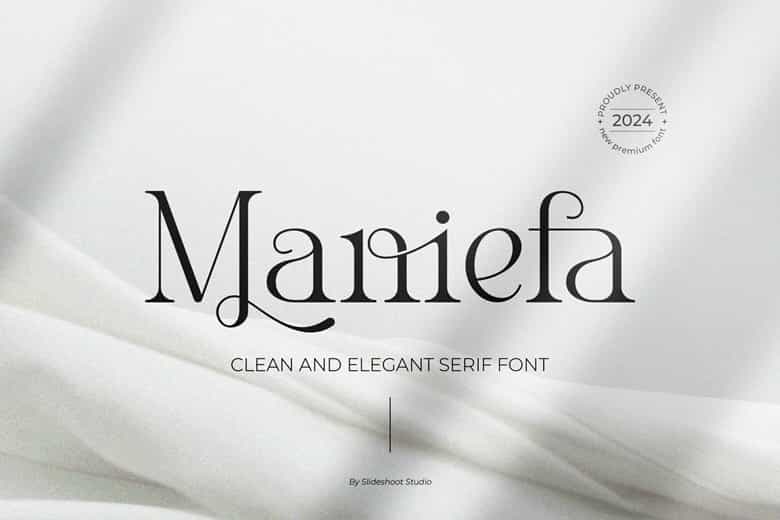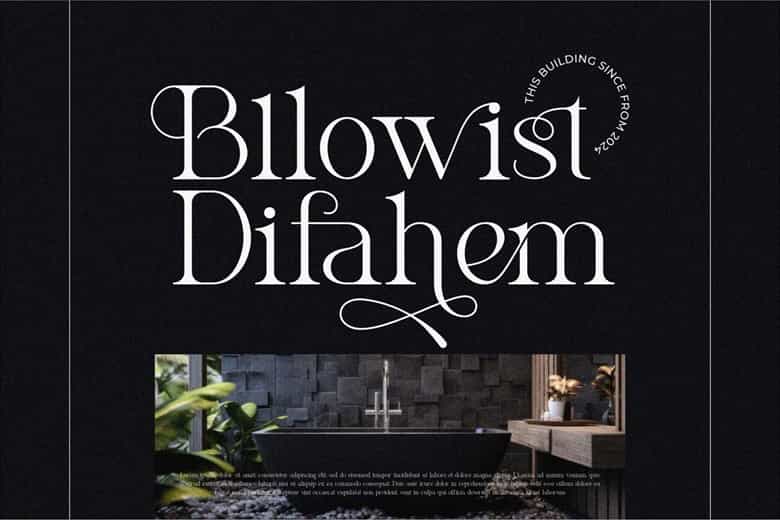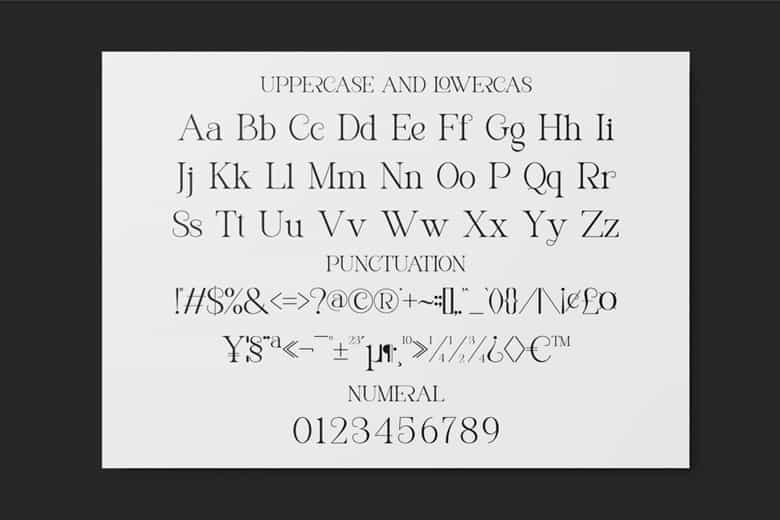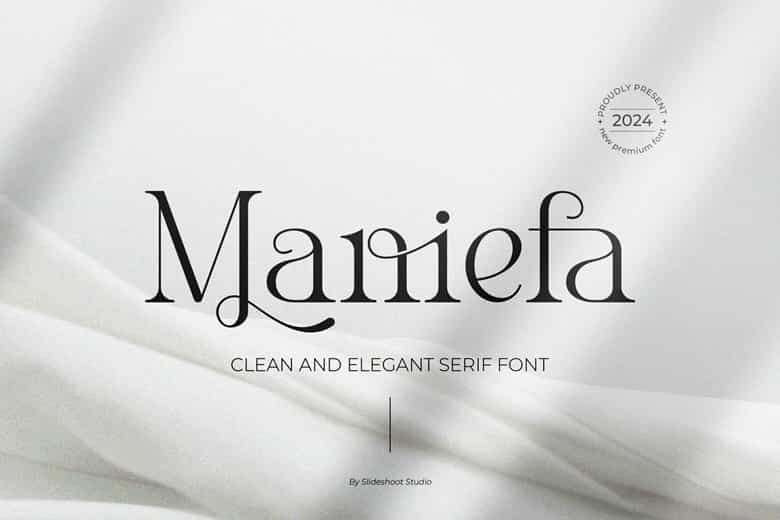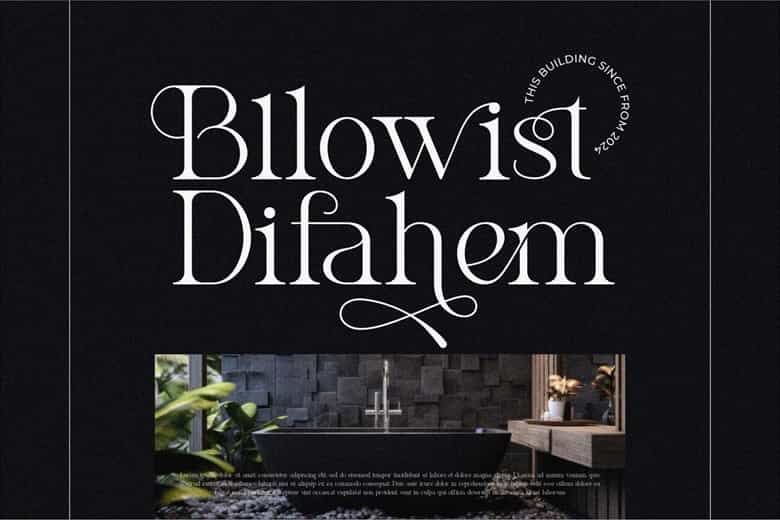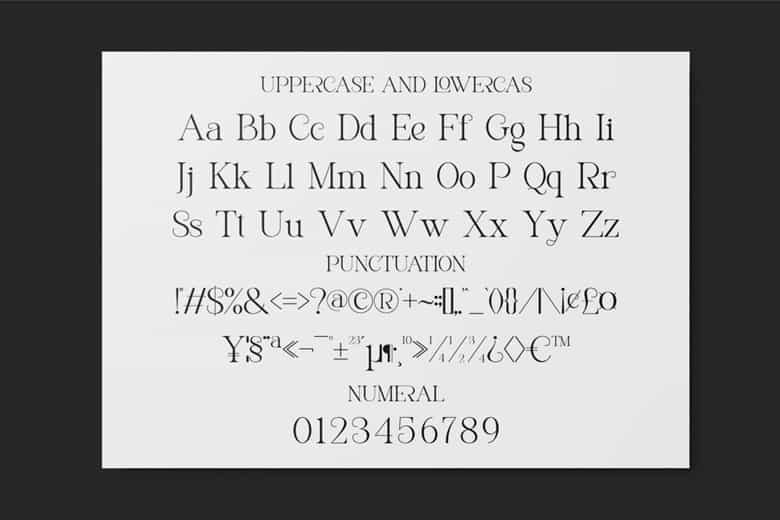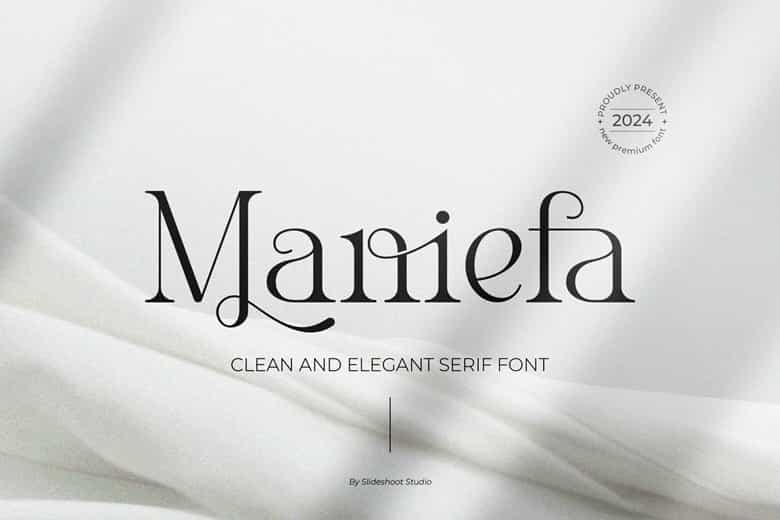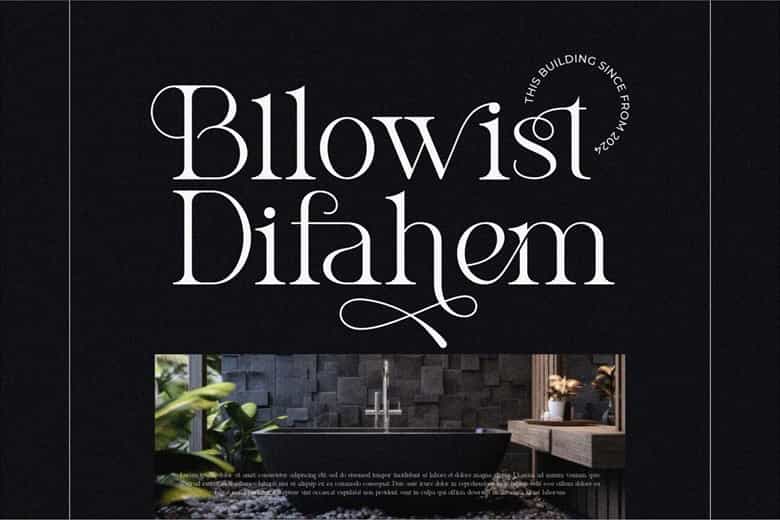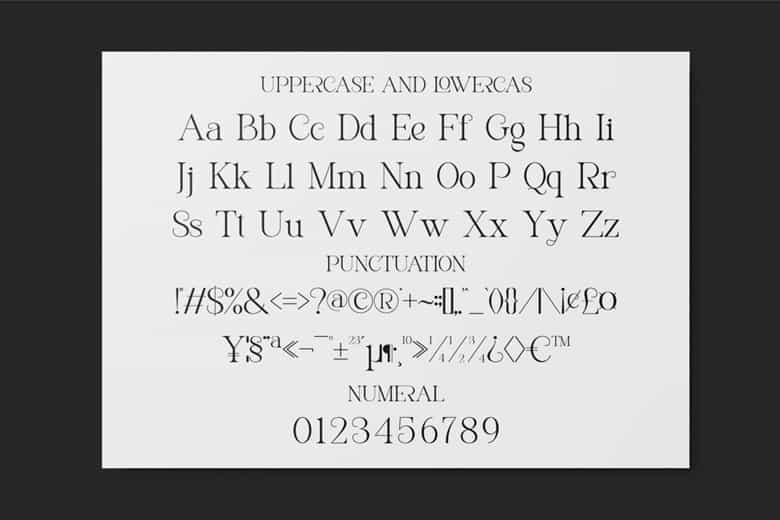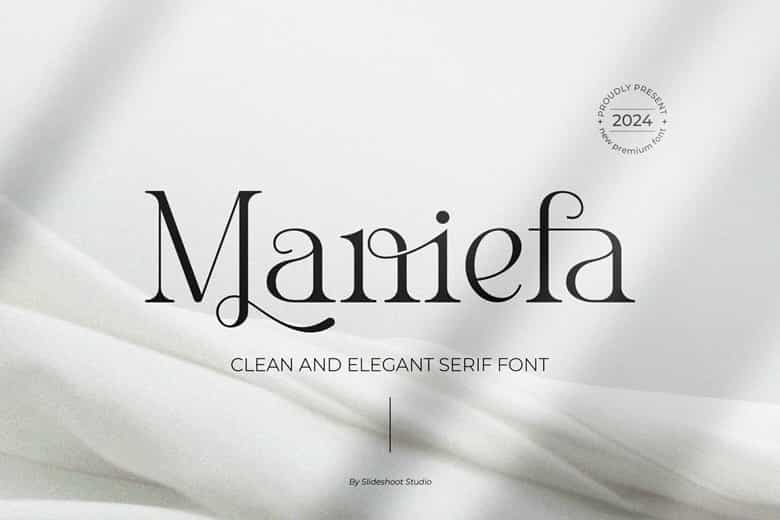
Maniefa is a clean serif typeface, which looks sophisticated and classy. It creates interest and lifts any design. It is ideal for the invitation card, logos, movies title, movie title and name, business cards, books title, brand name, and other designs.